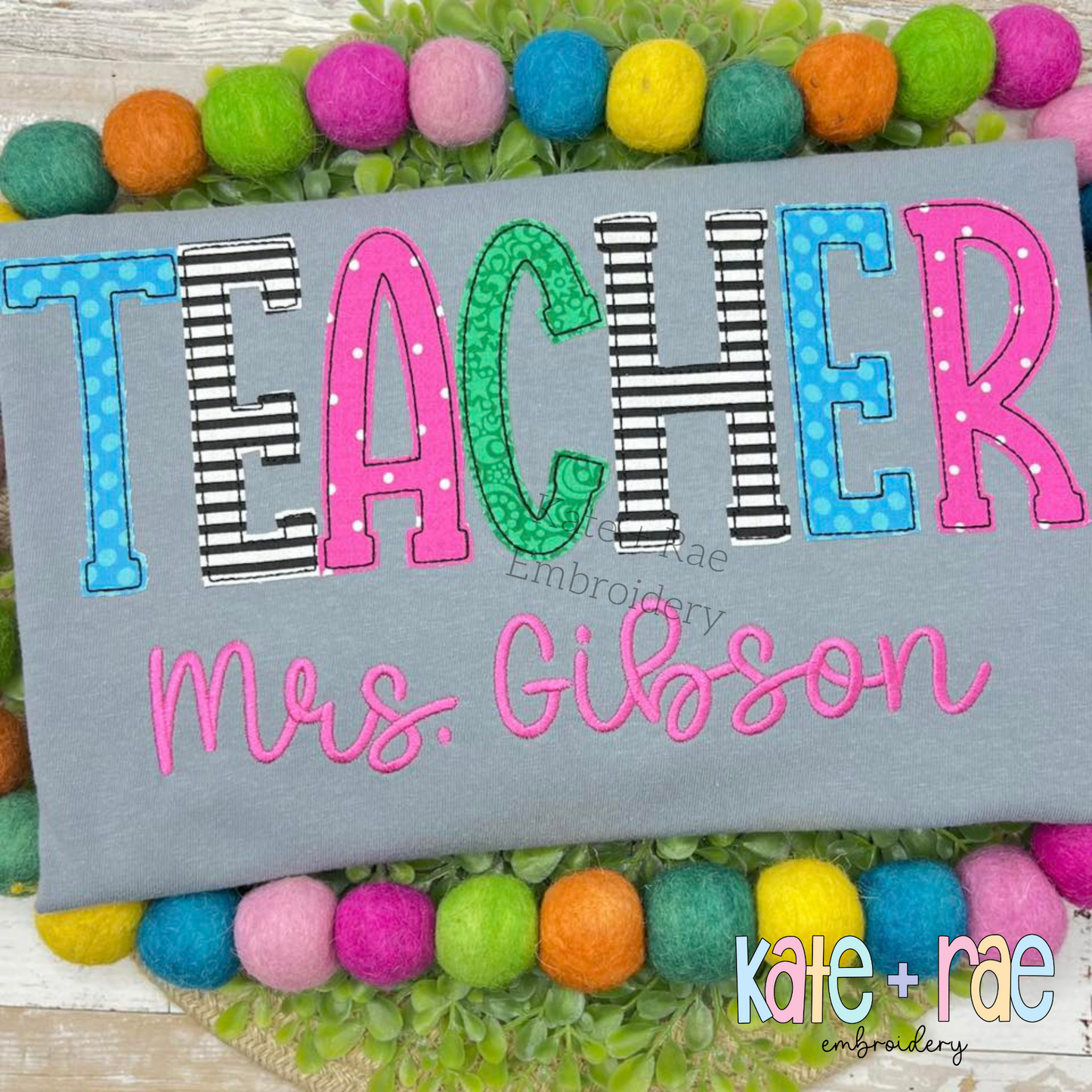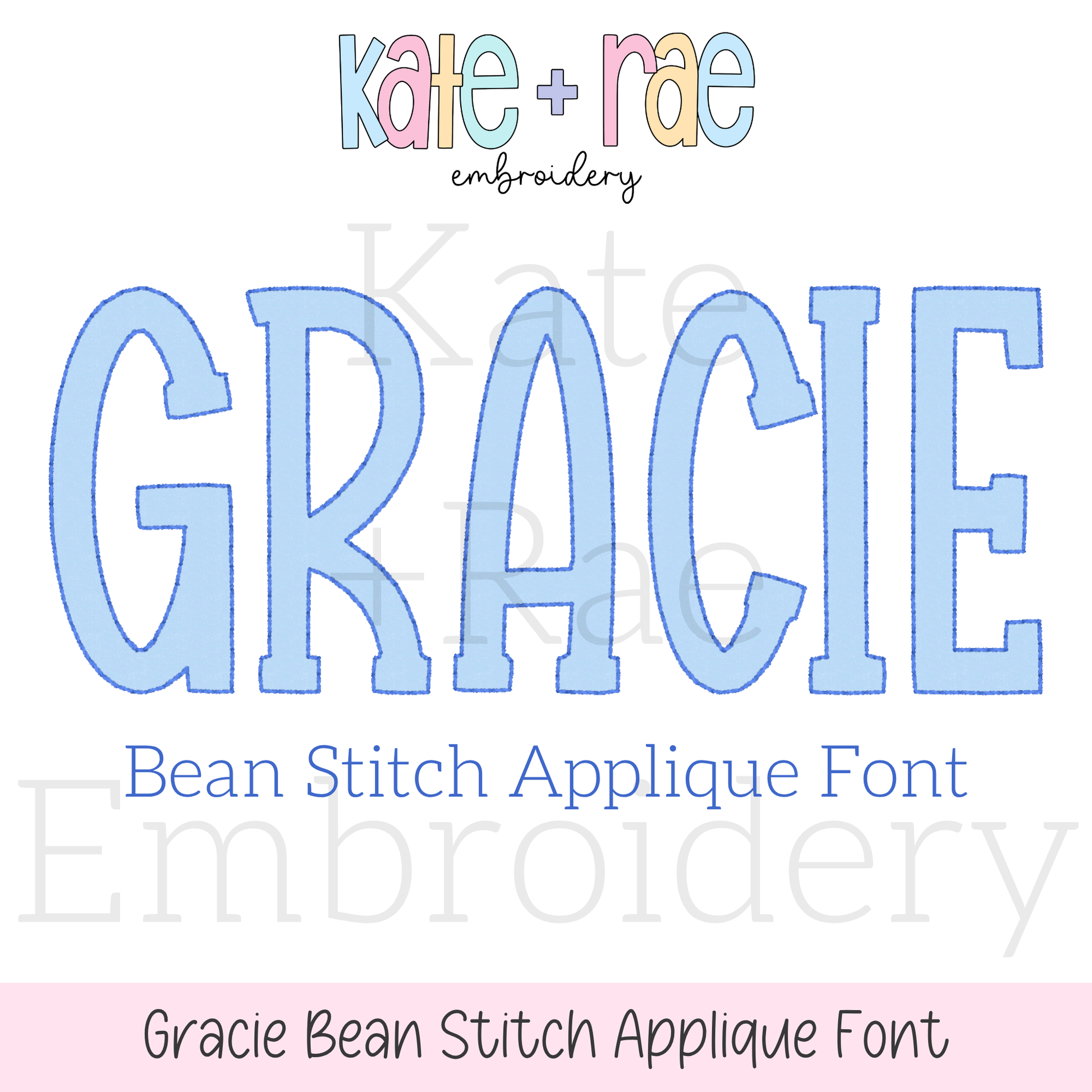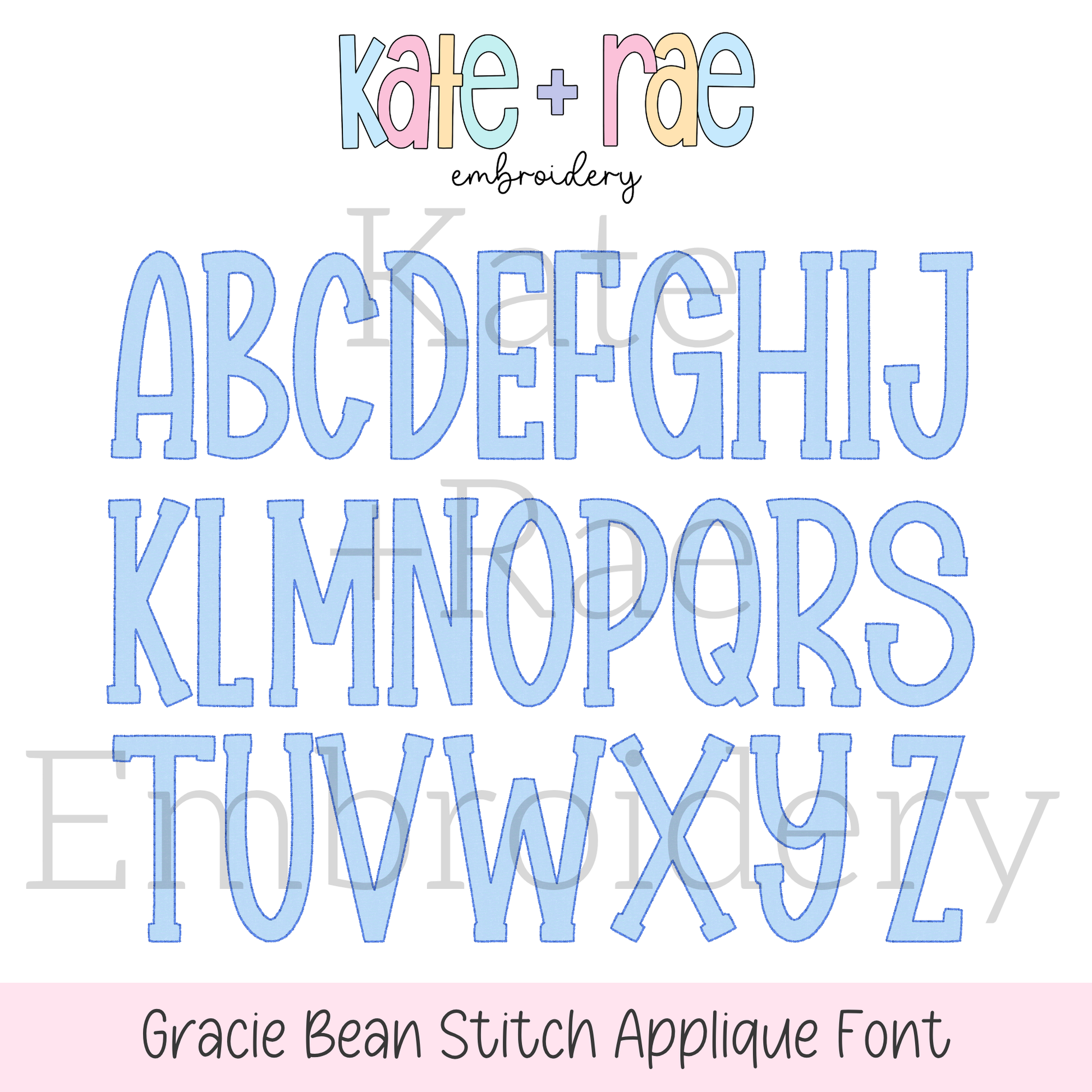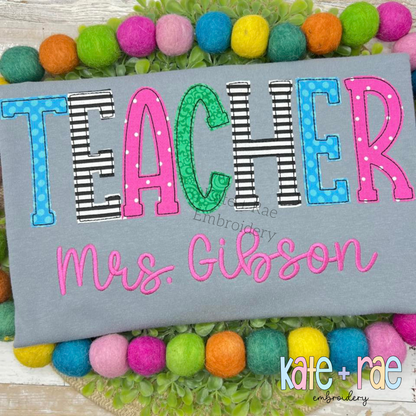
Gracie Bean Stitch Applique Embroidery Font
Meet Gracie, a sweet bean stitch applique font! Personalize names, monograms, sweatshirts, and kids' outfits.